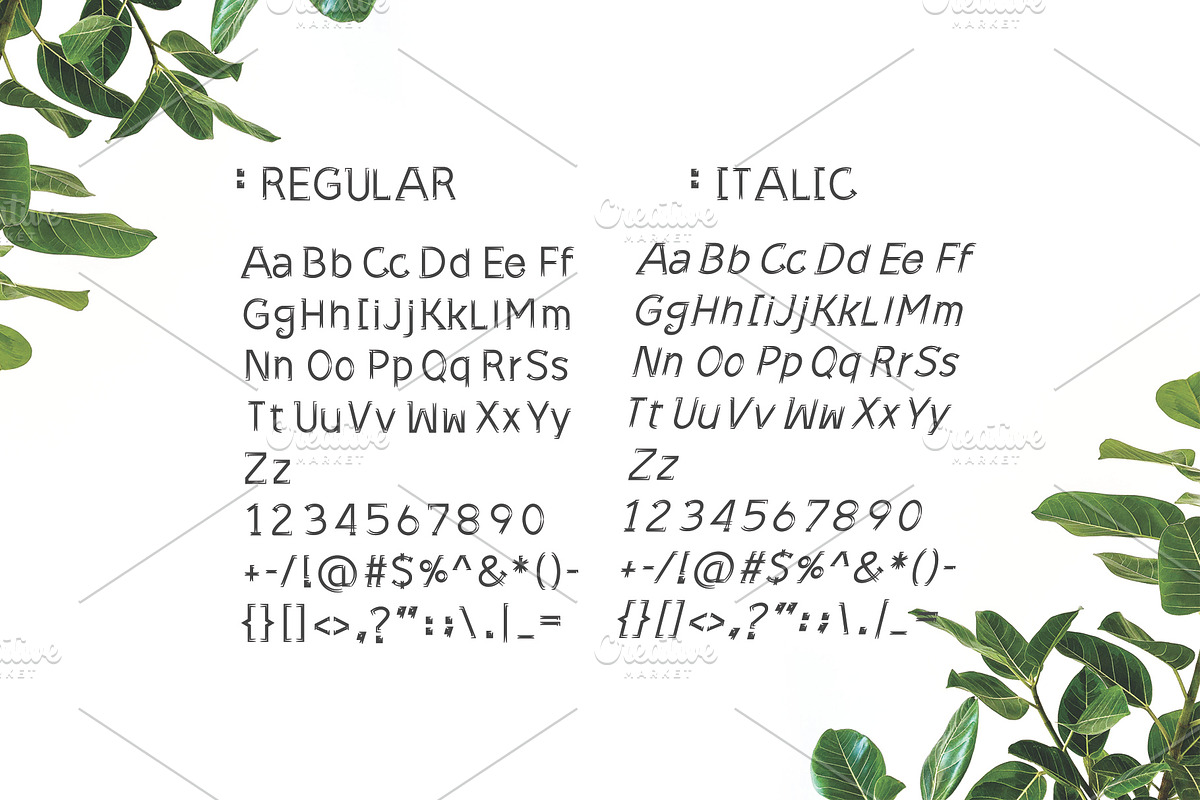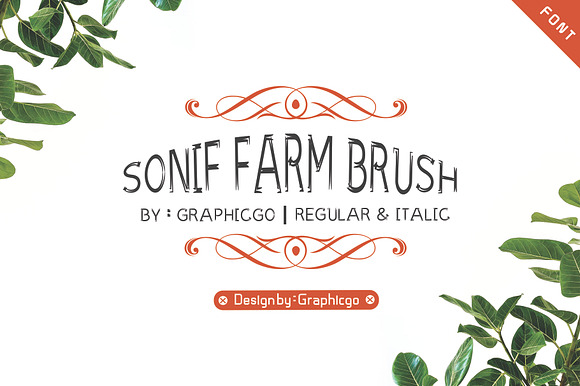
Sonif Farm Brush Font
Sonif Farm Brush Font is hay brush writing style. It 's perfect for hand made and organic products, cards, posters, wall art, branding, diy projects, greeting cards, labels, quotes, packaging, websites and much more.
Uppercase and Lowercase
Why Sonif Farm Brush Font is worth a look
Sonif Farm Brush Font by Graphicgo fits naturally into Branding, posters, packaging, typography.